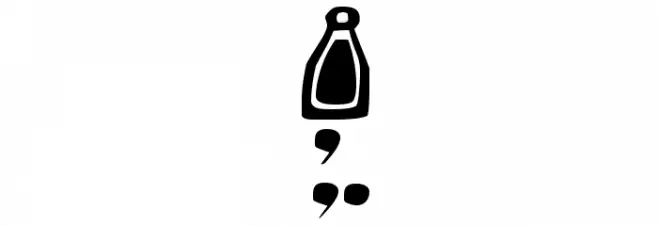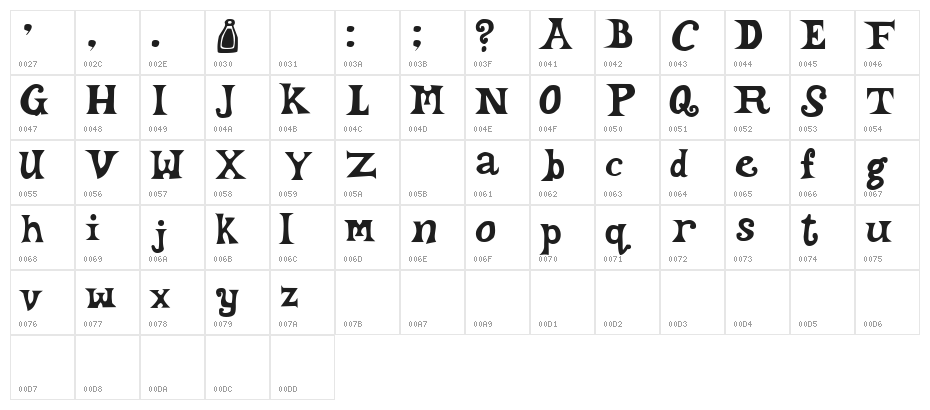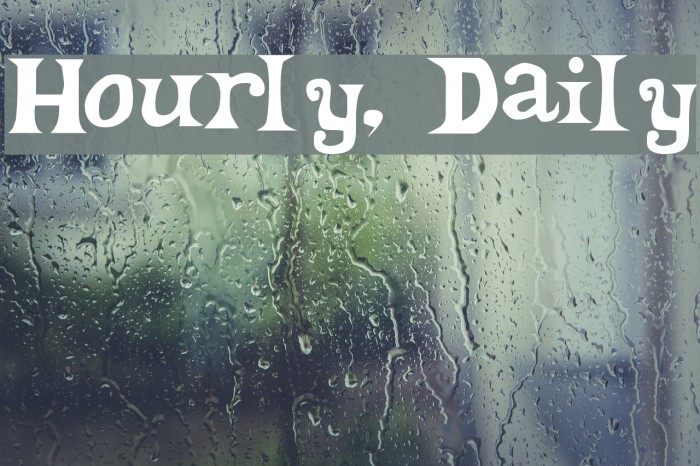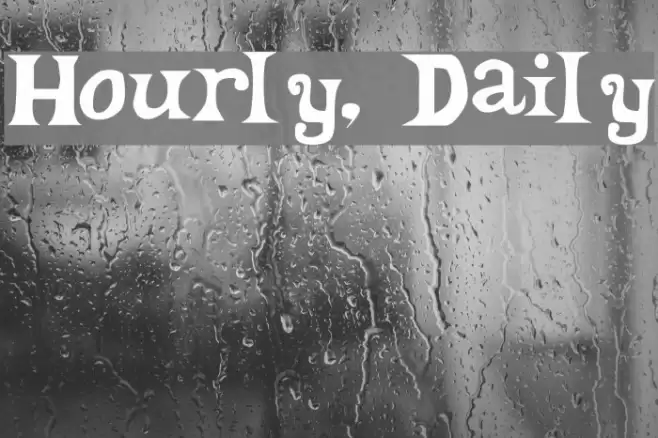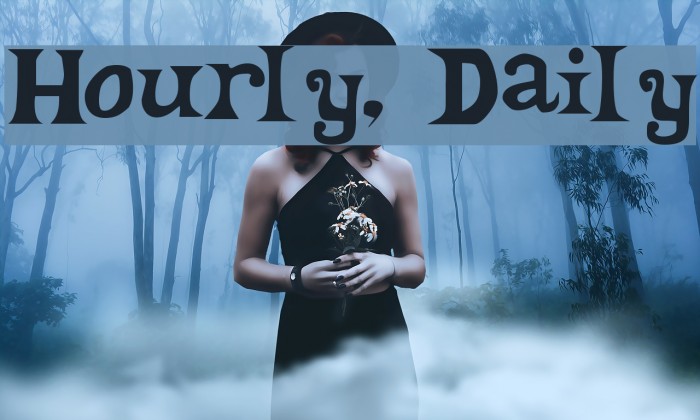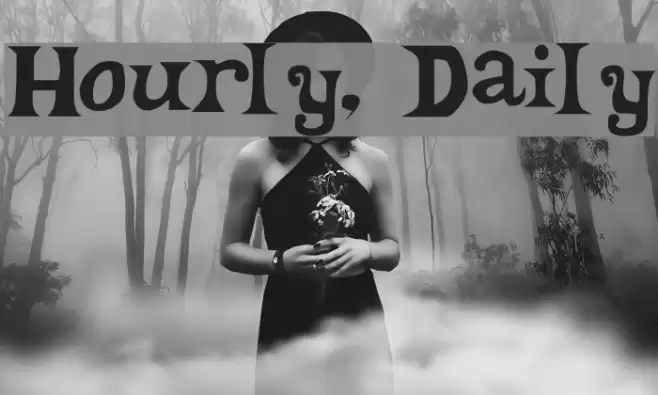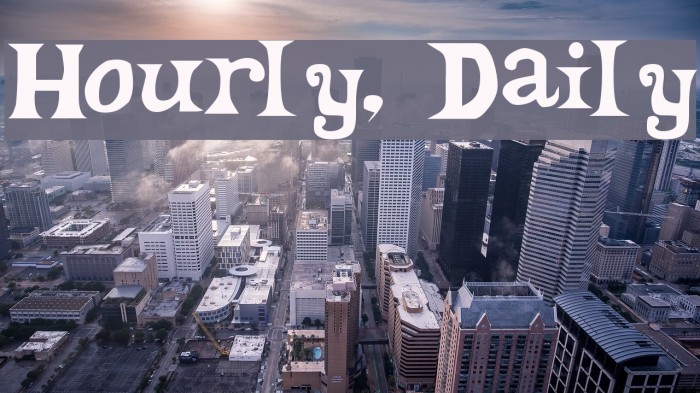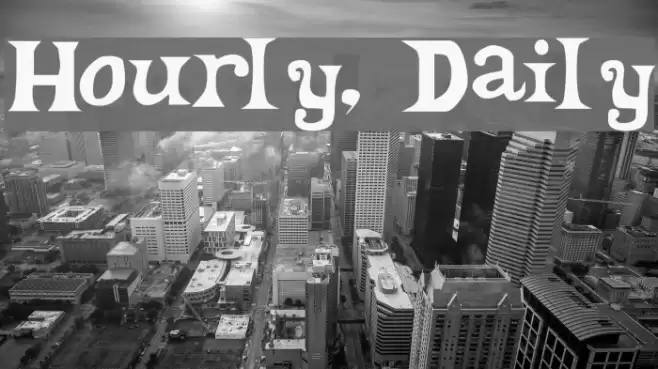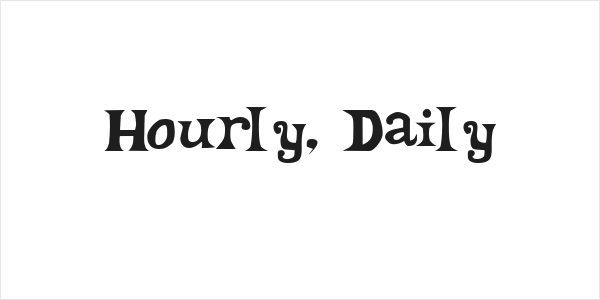
Hourly, Daily Font
Hourly, Daily Description
This font features a whimsical and playful design, with exaggerated serifs and varying stroke widths that create a dynamic and lively appearance. The uppercase letters are bold and prominent, while the lowercase letters maintain a consistent style with unique character shapes. The font includes a variety of special characters, adding to its versatility. The overall design is reminiscent of a vintage or retro style, making it suitable for creative and artistic projects. Its distinct personality makes it stand out, ideal for capturing attention in headlines or logos.
| Proposed Projects | Ideal for creative projects such as posters, logos, book covers, and branding materials that require a distinctive and artistic touch. |